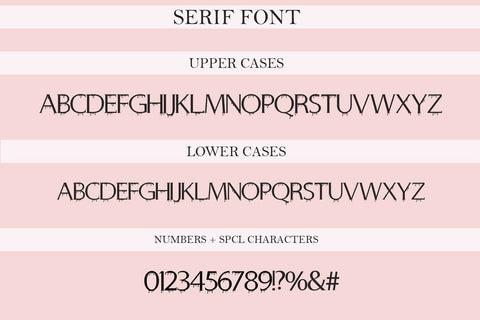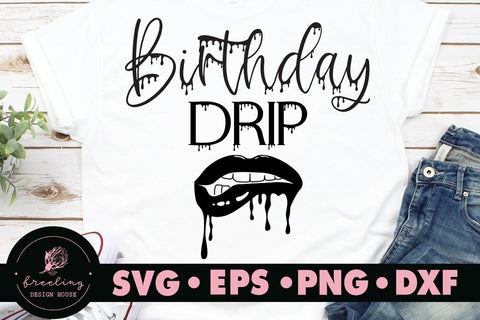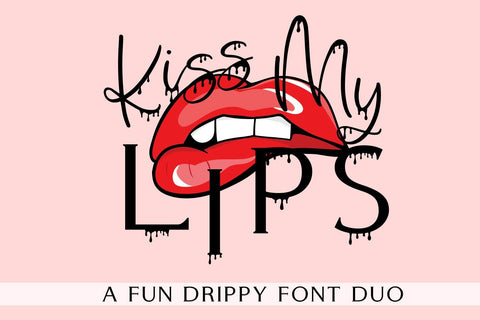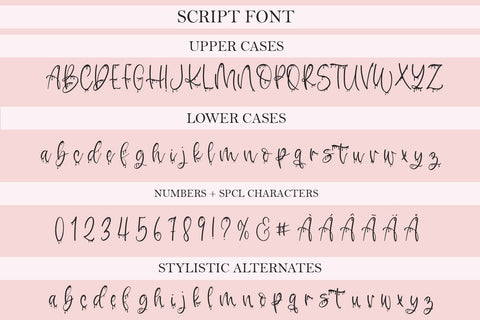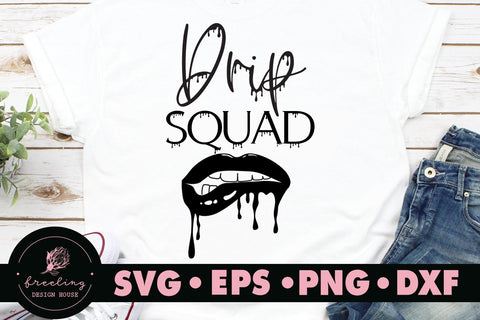
Kiss My Lips - Dripping Font Duo
Kiss My Lips - A dripping Serif and script font duo, is a handwritten script font together with a serif font. This font will be perfect to use for all your upcoming Wedding DIY:s, Logos, Branding, Book covers or other quote based DIY:s.
Kiss My Lips - Serif and script font duo can be used for anything such as T-Shirt designs, phone cases, greeting cards, invitations, mugs and so much more! Be creative but most importantly have fun!
- Kiss My Lips Script - Comes with Uppercase A-Z and lowercase a-z letters, 0-9 numbers, stylistic alternates, ligatures, limited punctuation and supports Western European Languages
- Kiss My Lips Serif - Comes with Uppercase A-Z and lowercase a-z letters, 0-9 numbers, limited punctuation and supports Western European Languages